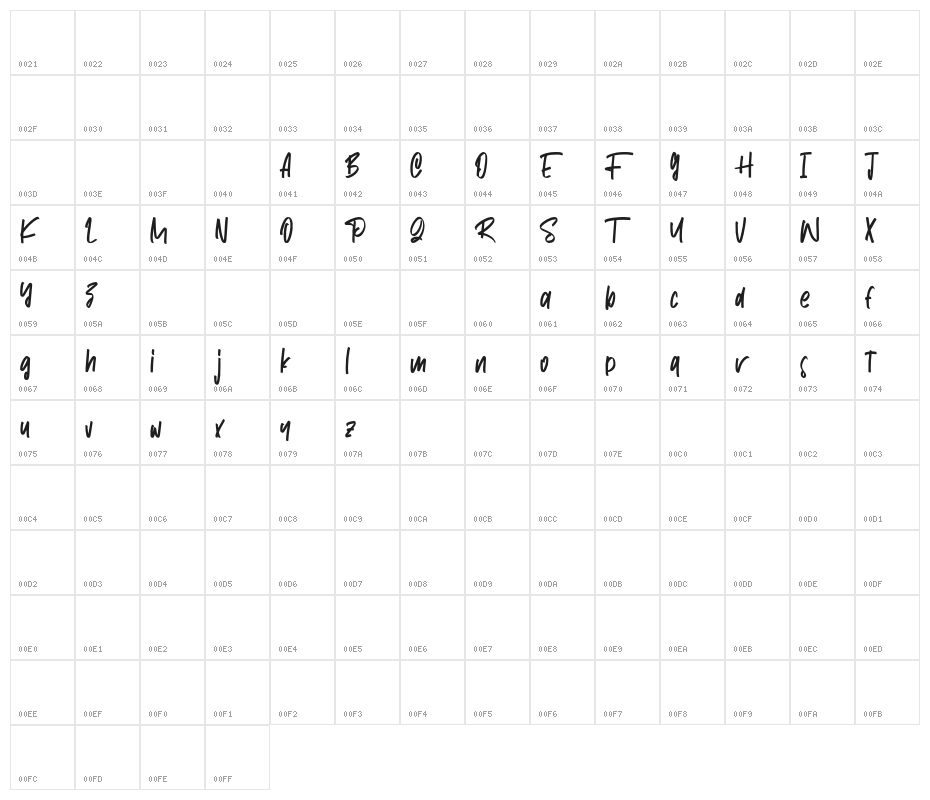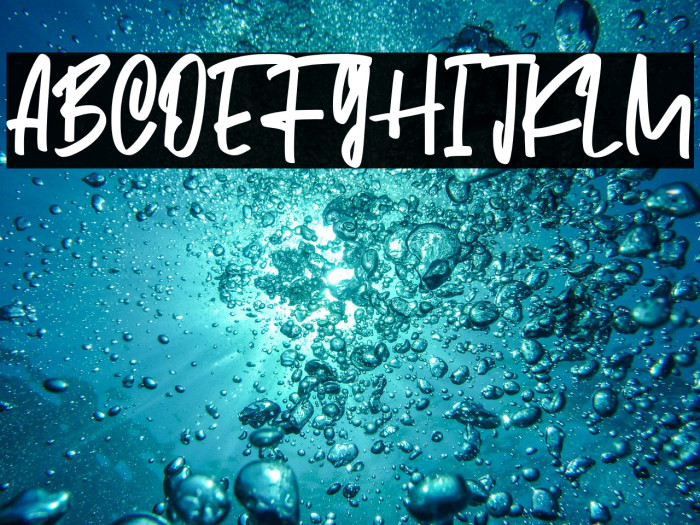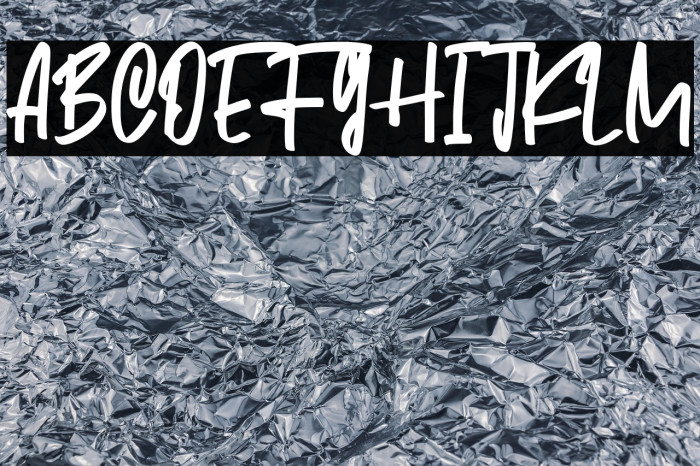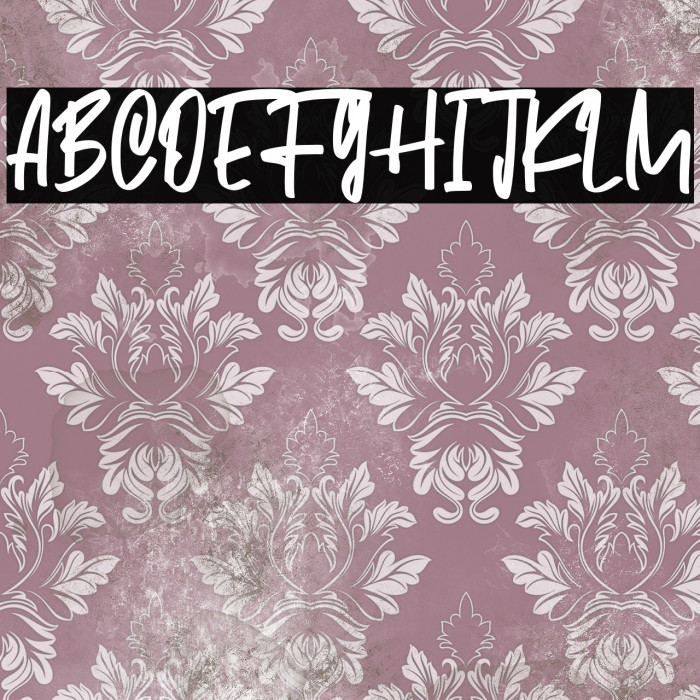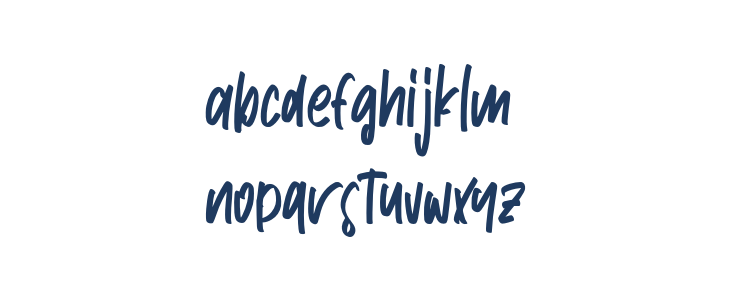
Marcello Font
Marcello Description
This font features a bold and expressive handwritten style, characterized by its fluid and dynamic letterforms. The strokes are thick and consistent, giving it a strong presence on the page. The uppercase letters are particularly striking, with exaggerated curves and loops that add a playful yet sophisticated touch. The lowercase letters maintain a similar style, ensuring a cohesive look throughout. This font is perfect for projects that require a personal and artistic flair, such as invitations, posters, or branding materials. Its unique style makes it stand out, while still being legible and versatile.
| Proposed Projects | Ideal for invitations, posters, branding materials, and any project needing a personal touch. |